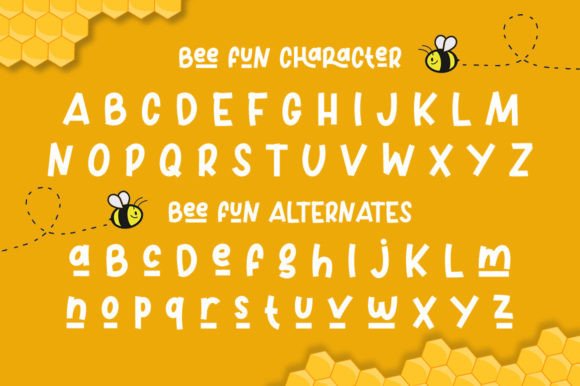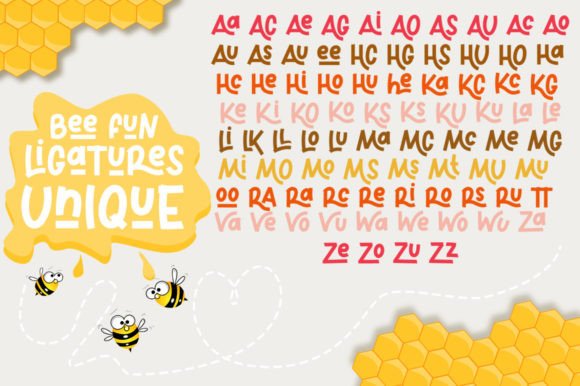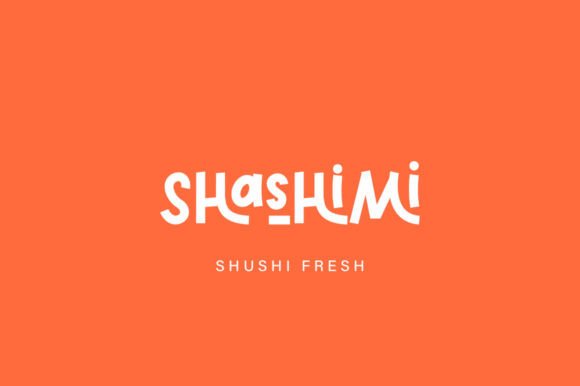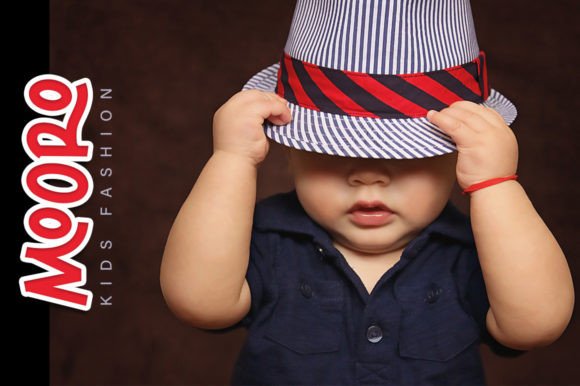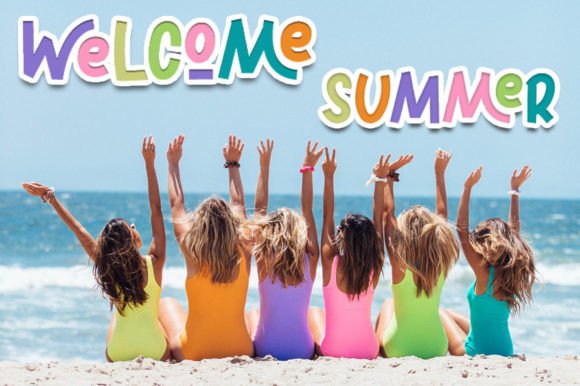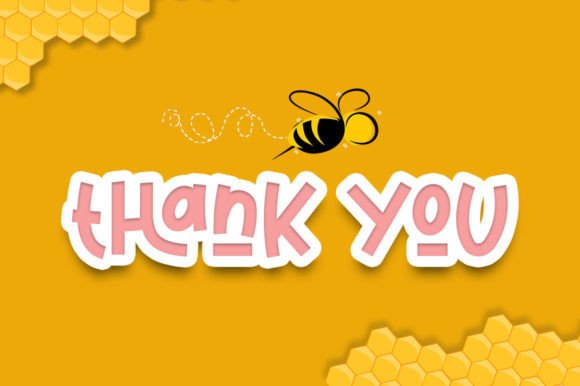
The Perfect Pollen for Your Designs: Introducing Bee Fun Font
Have you ever been in the midst of a creative project, staring at a blank canvas or screen, and suddenly an idea strikes you like a ray of sunshine? That’s exactly what happened when we first laid eyes on the Bee Fun Font – it’s as if this charming display font was buzzing with inspiration, waiting to bring your creations to life.
Bee Fun Font is a beautifully crafted display font that adds a touch of warmth and personality to any project. Whether you’re designing a logo, creating a social media campaign, or crafting a magazine layout, this font is sure to be a valuable asset to your font library. With its PUA encoding, you can easily access all the ligatures and create stunning visual effects that will leave your audience buzzing with delight.
- Unique Characteristics: The font features a playful, handwritten style with exaggerated letterforms and a touch of whimsy, making it perfect for creative projects and designs that require a touch of personality.
Bee Fun Font Review
I recently had the chance to work with the Bee Fun Font, and I must say it’s a unique addition to any design project. ✨ The font’s playful, whimsical nature makes it perfect for creating eye-catching and engaging graphics.
- Colorful and fun, great for children’s content, party invitations, or social media posts.
- Comes with a wide range of glyphs and symbols that can add a touch of personality to your designs.
- Works well for headings, titles, and short paragraphs where you want to create a sense of excitement.
However, I do have a few concerns about the font. ⚠️ The overall consistency and legibility could be improved, especially in smaller font sizes.
- Some letters and symbols may be difficult to read at smaller sizes, which can affect the overall readability of your content.
- The font’s quirky nature can also make it challenging to pair with other fonts, as it may clash with more traditional or serious typefaces.
Overall, I think the Bee Fun Font is a great choice for projects where you want to add a touch of fun and whimsy. Just be mindful of the potential limitations and take the time to carefully pair it with other design elements.
Some popular use cases for Bee Fun Font include:
– Creating playful and whimsical designs.
– Adding a touch of nostalgia to retro-inspired designs.
– Using it for kids’ educational materials and children’s books.
– Adding a pop of color to social media graphics and advertisements.